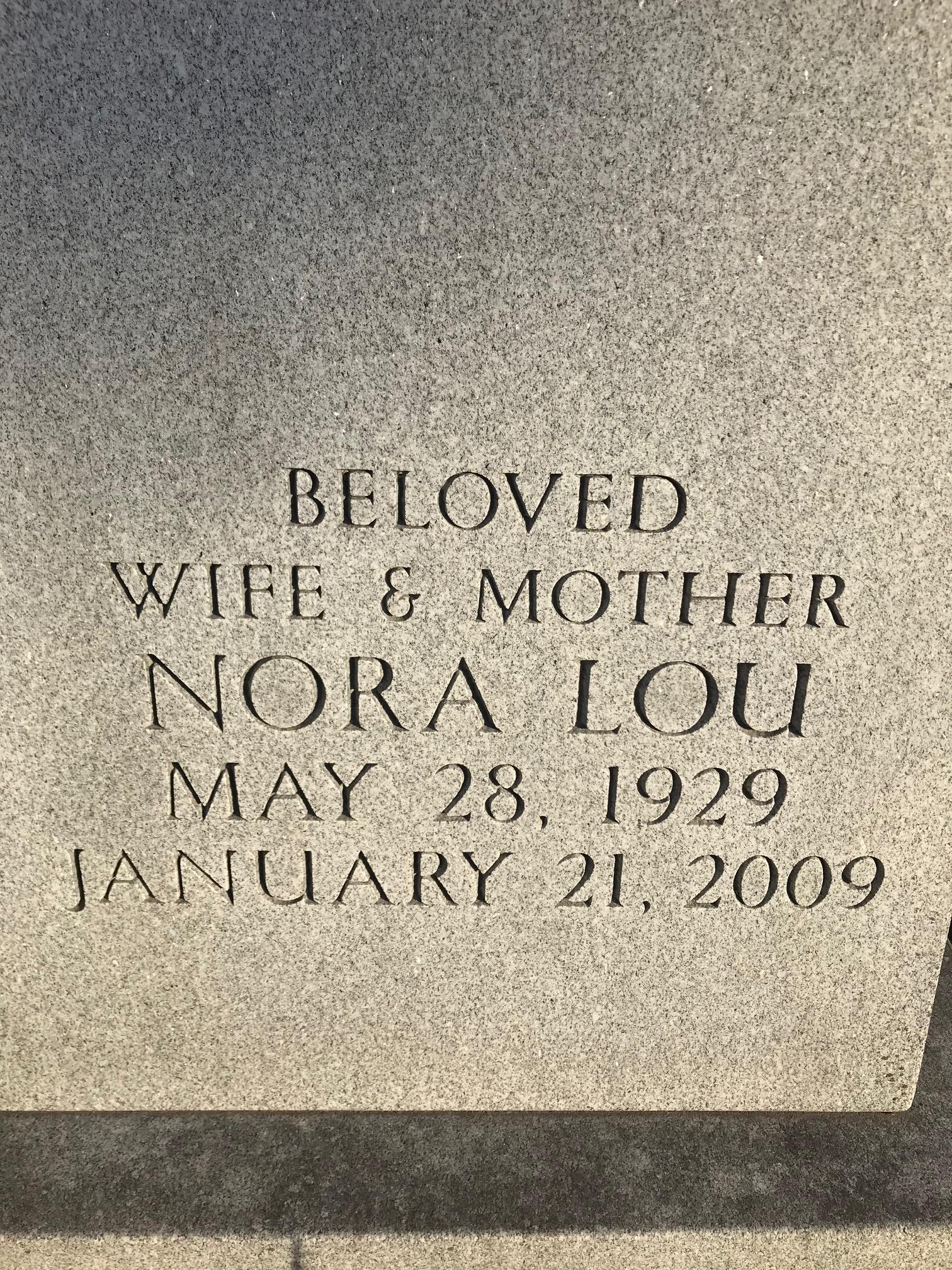
I’m looking for the name of this font? I have to match it for an additional inscription.  Also, do you know where the font can be purchased?
Hi Rusty, this is a version of Perpetua that is only available in the Gerber software as far as I am aware, which contains that ampersand and a double-V form of ‘W’.
The name of the Gerber font is Perpetua Regular Acct AK Rev B.
I believe Perpetual Titling is the closest version available for purchase as a standalone typeface, but it will need modification to match this inscription.